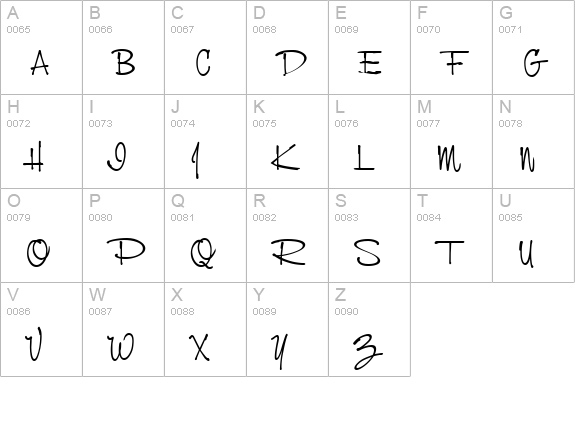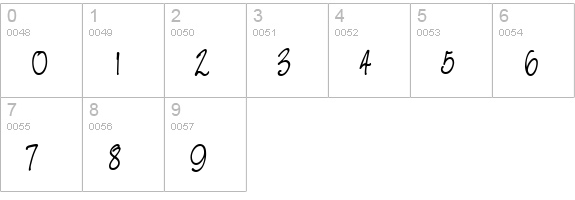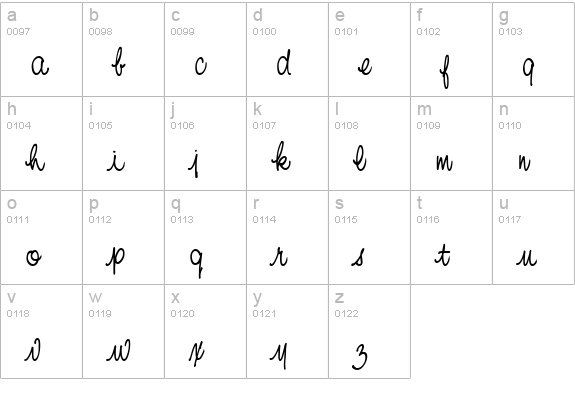
Nevison Regular Font Details
Nevison Regular is the standard, neutral variant in the Nevison typeface family \xE2\x80\x94 well suited to general body text, paragraphs, and standard typographic work.
Nevison Regular font is a classic and elegant typeface that exudes sophistication and timelessness. With its clean lines and balanced proportions, Nevison Regular is perfect for adding a touch of refinement to any design project. Whether used for headings, body text, or branding, this versatile font is sure to make a statement. What makes Nevison Regular even more appealing is that it is available for free download at FontsMarket.com. This means that you can easily access this high-quality font without any cost, making it a valuable addition to your font library. Whether you're a designer, a student, or a hobbyist, Nevison Regular is a versatile and stylish choice that won't break the bank. Download it today and elevate your designs with this beautiful and freely available font.